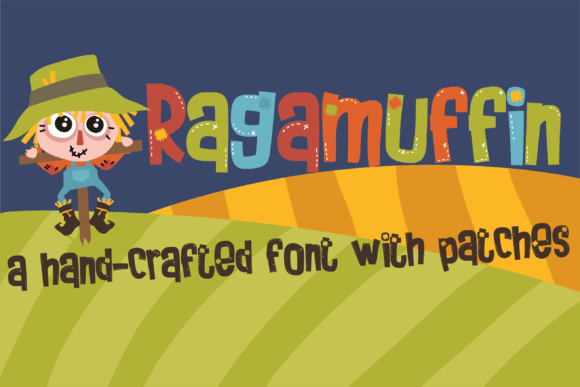
Journey into the world of Ragamuffin Font, a display font family that breathes life into your designs with its playful and captivating stitches and patches. Each letter is a handcrafted masterpiece, a testament to the artistry of Illustration Ink. With its blocky, whimsical style, Ragamuffin Font adds a touch of whimsy and joy to any project.
Discover the boundless possibilities of Ragamuffin Font, perfect for crafting eye-catching logos, vibrant posters, cheerful invitations, and playful social media graphics. Its bold, playful nature shines through, leaving a lasting impression on your audience.
Embrace the unique charm of Ragamuffin Font, a font that sparks creativity and ignites the imagination. Let your designs exude personality and captivate your audience with this delightful display font.
Step into a world of stitches and patches, where fun and creativity intertwine. Unleash the magic of Ragamuffin Font today and transform your designs into works of art.